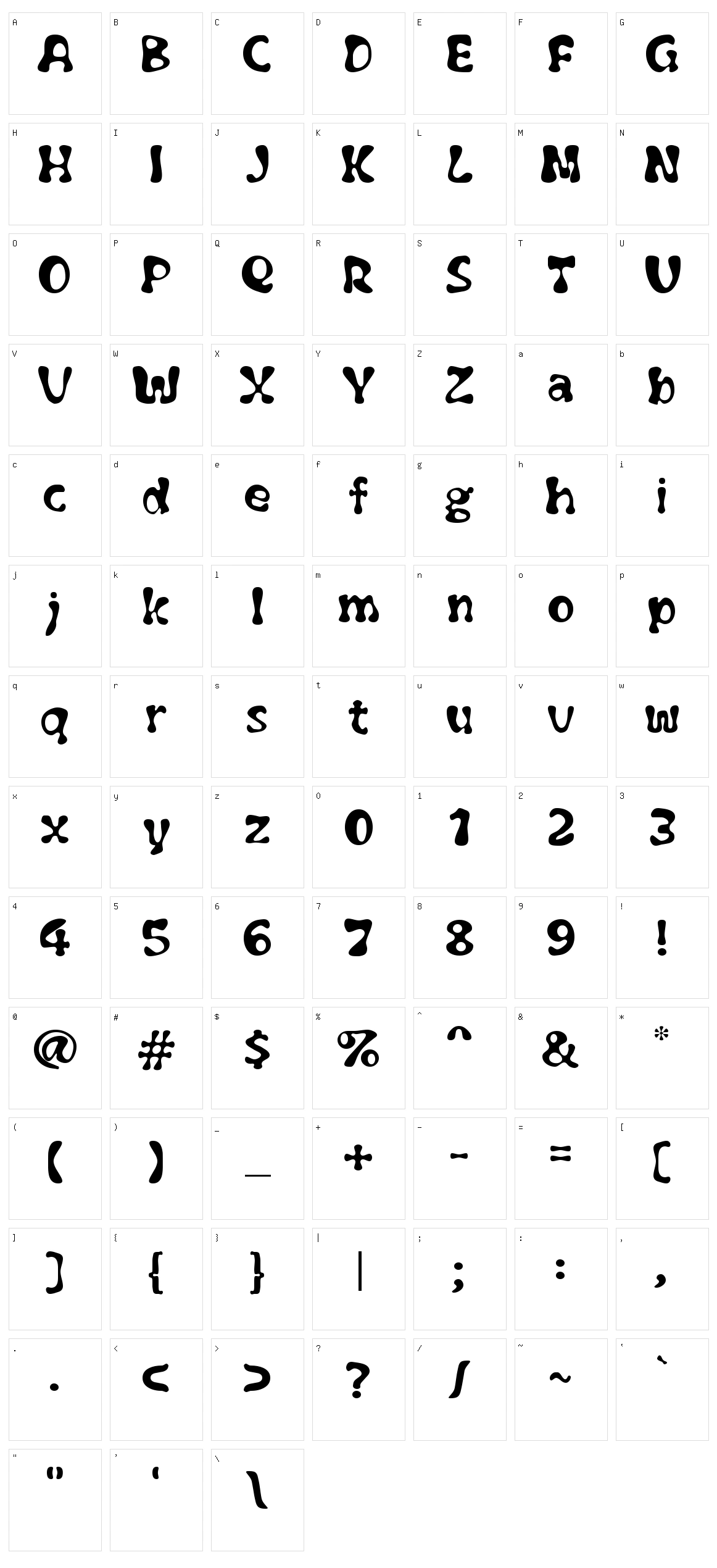
This version includes upper and lowercase letters, punctuation, and many international characters. I also included some UA Type dingbats (just to amuse myself, and so you don't get those annoying boxes when you type something that isn't in the font).
Remember the "Absent-Minded Professor" from Disney? He accidently created this rubbery substance that bounced higher and higher. He used it to make things fly. Well, I accidently dicovered the technique for making this font. And it has that rubbery - strechy look to it.